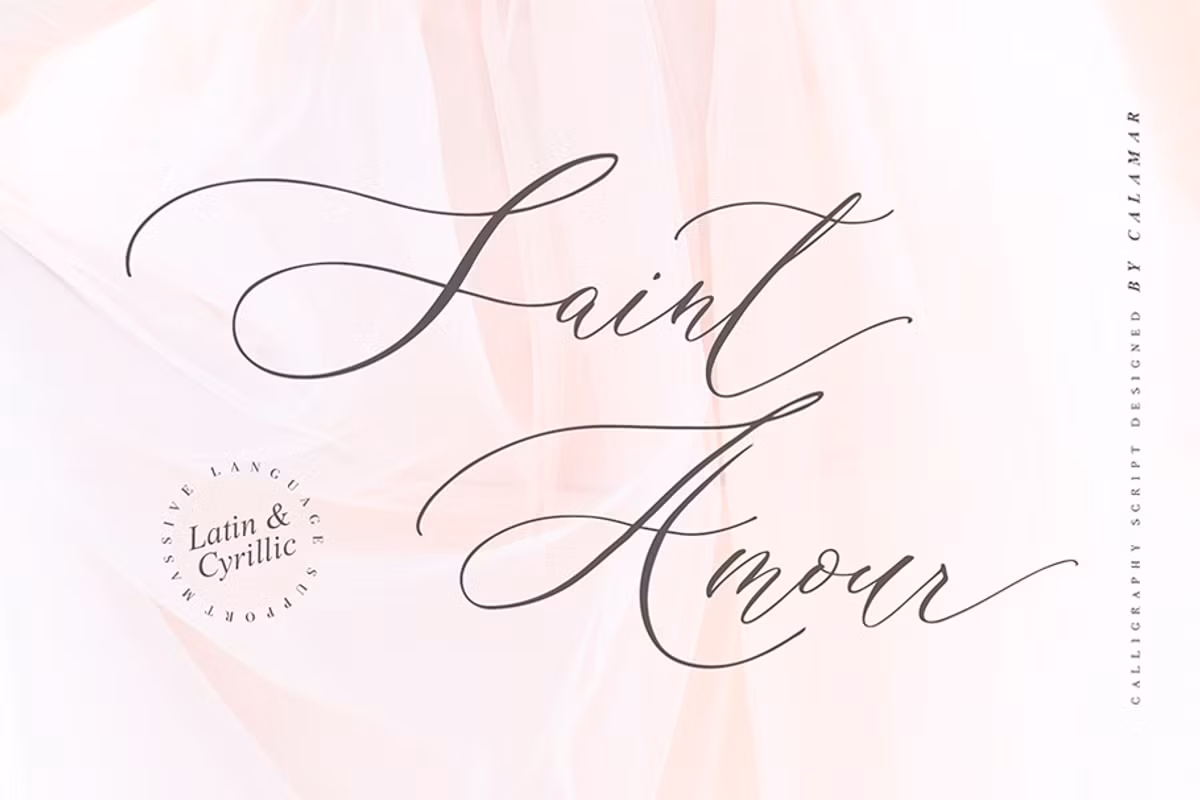
Saint Amour Font Free Download is a romantic and elegant script typeface designed to bring charm and sophistication to your designs. With its graceful, flowing letterforms and delicate curves, Saint Amour is perfect for wedding invitations, love-themed branding, signature logos, packaging, and handwritten quotes.
Crafted to mimic luxurious calligraphy, this font includes uppercase and lowercase letters, numerals, punctuation, and stunning ligatures that add a natural rhythm and beauty to every word. Its fine balance between classic and modern script styles makes it versatile and timeless.
Whether you're working on a high-end invitation suite or a romantic lifestyle brand, Saint Amour Font Free Download will elevate your typography with elegance and emotion. Try it in personal or mockup projects, and be sure to purchase the proper license for any commercial use. Add a touch of love and luxury to your designs with this beautiful script font.